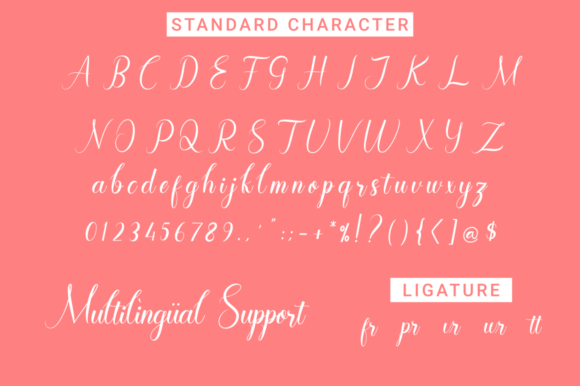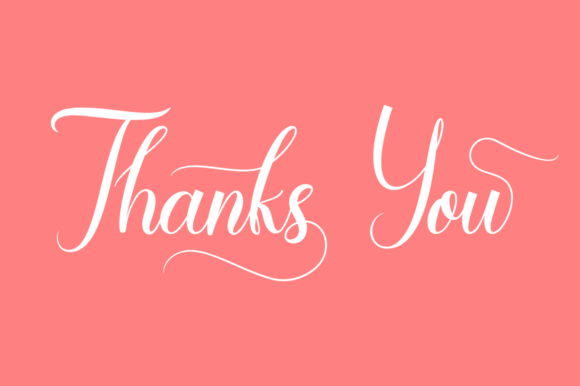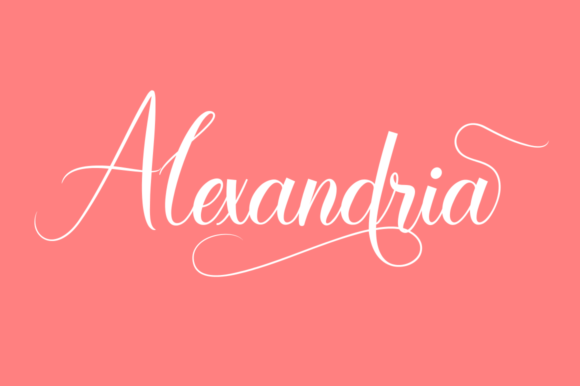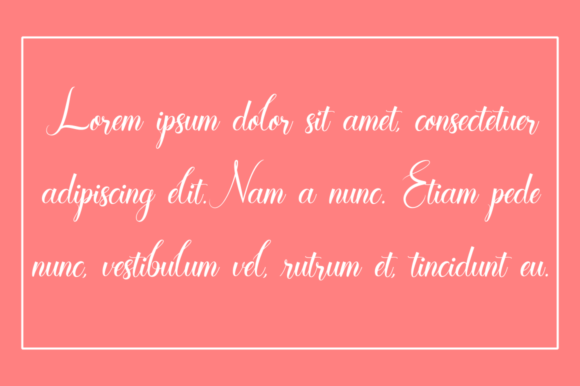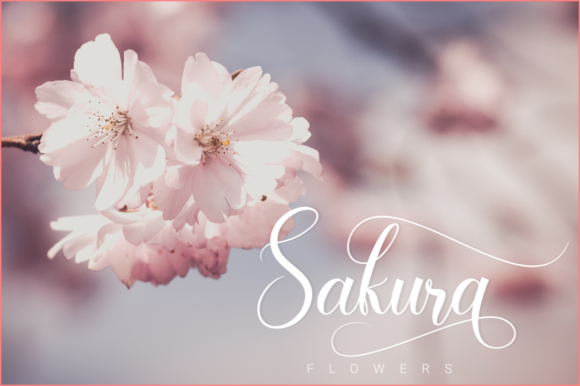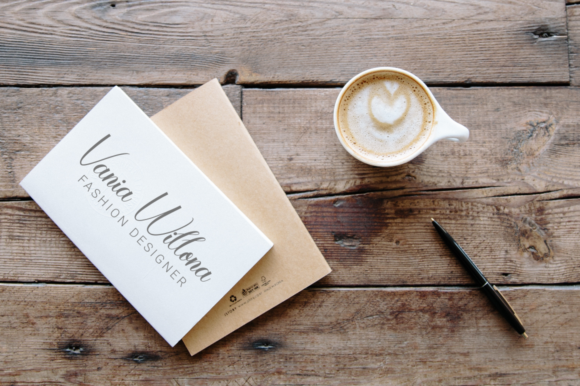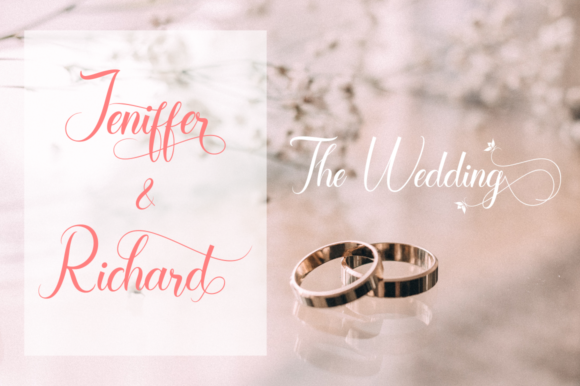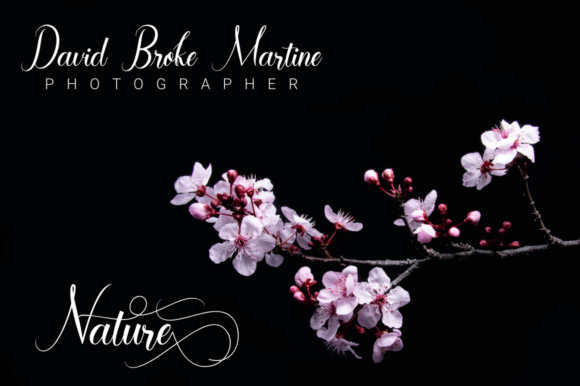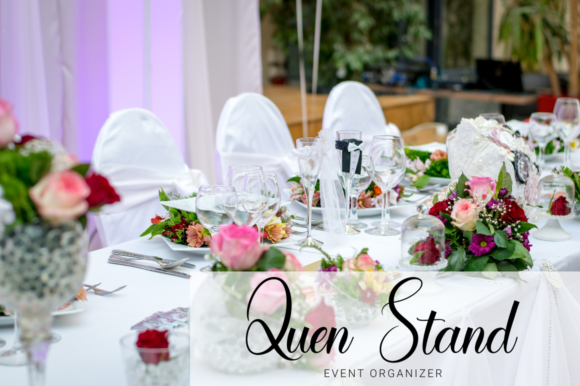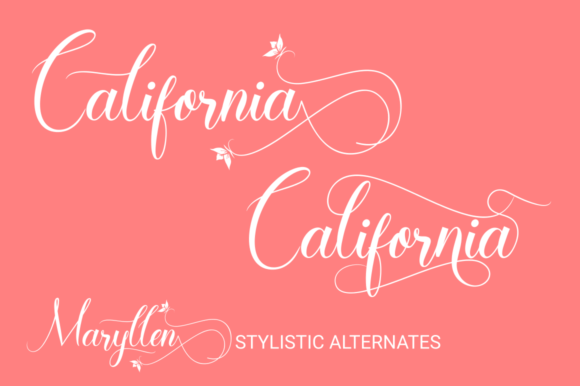
HomeScript FontsMaryllen Font Script Fonts Maryllen Font FacebookXPinterestWhatsApp Maryllen Font Poster 2 Maryllen Font Poster 3 Maryllen Font Poster 4 Maryllen Font Poster 5 Maryllen Font Poster 6 Maryllen Font Poster 7 Maryllen Font Poster 8 Maryllen Font Poster 9 Maryllen Font Poster 10 Maryllen Font Poster 11 About Maryllen Font Maryllen is a modern calligraphy font with elegant swashes. It will elevate any design project! DOWNLOAD NOW People also explored Gatalagak Font Easter Bunny Font Riberio Font Winky Star Font Delight Calligraphy Font Mini Mouse Font Death Ghost Font Sherlyn Font Kasandra Script Font 291 0 TagsMaryllen Font Previous articleMilova FontNext articleMolly & Elroy Font LEAVE A REPLY Cancel reply Comment: Please enter your comment! Name:* Please enter your name here Email:* You have entered an incorrect email address! Please enter your email address here Website: Save my name, email, and website in this browser for the next time I comment. Personal Use Free Farmhouse Christmas Personal Use Free Read more about this font Laneway Personal Use Free Read more about this font Amillina Monogram Personal Use Free Read more about this font Happy Garden Personal Use Free Read more about this font BLOG Fonts That Capture the Spirit of New York City New York City is more than just a place—it’s an experience, a rhythm, a visual language... Elegant Wedding Invitation Fonts – Handwritten & Script Fonts Free vs Paid Fonts: Why Investing in Premium Fonts Is Worth It Free Fonts Risk: Why Free Fonts Can Be Dangerous for Designers